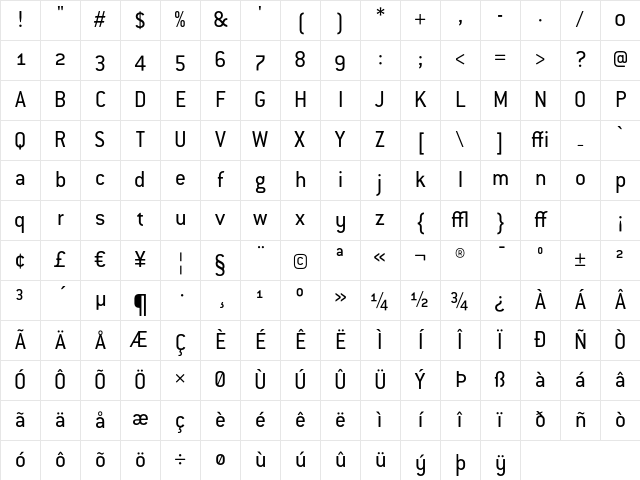
ConduitOSITC Regular
Design Context for ConduitOSITC
ConduitOSITC is a composed and adaptable typeface that performs quietly and consistently across a wide range of design contexts. Its narrow stance lets it pack a punch even in space-constrained designs.